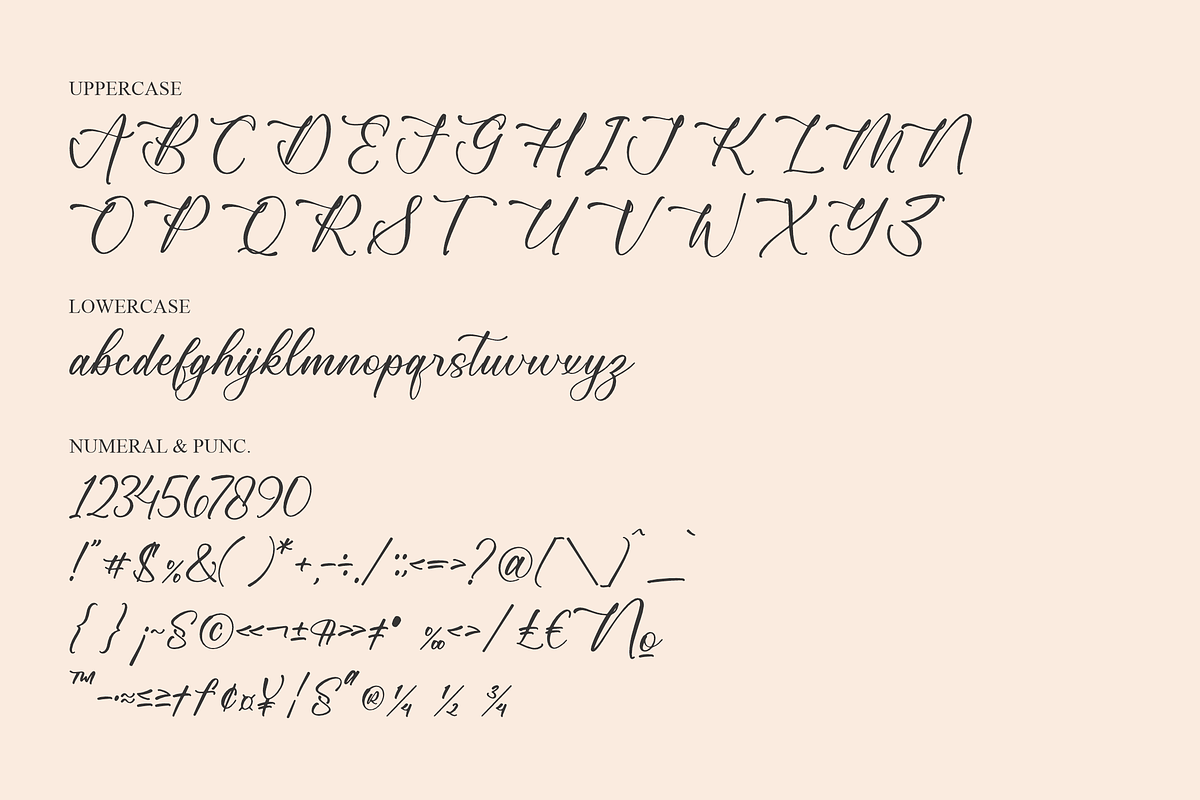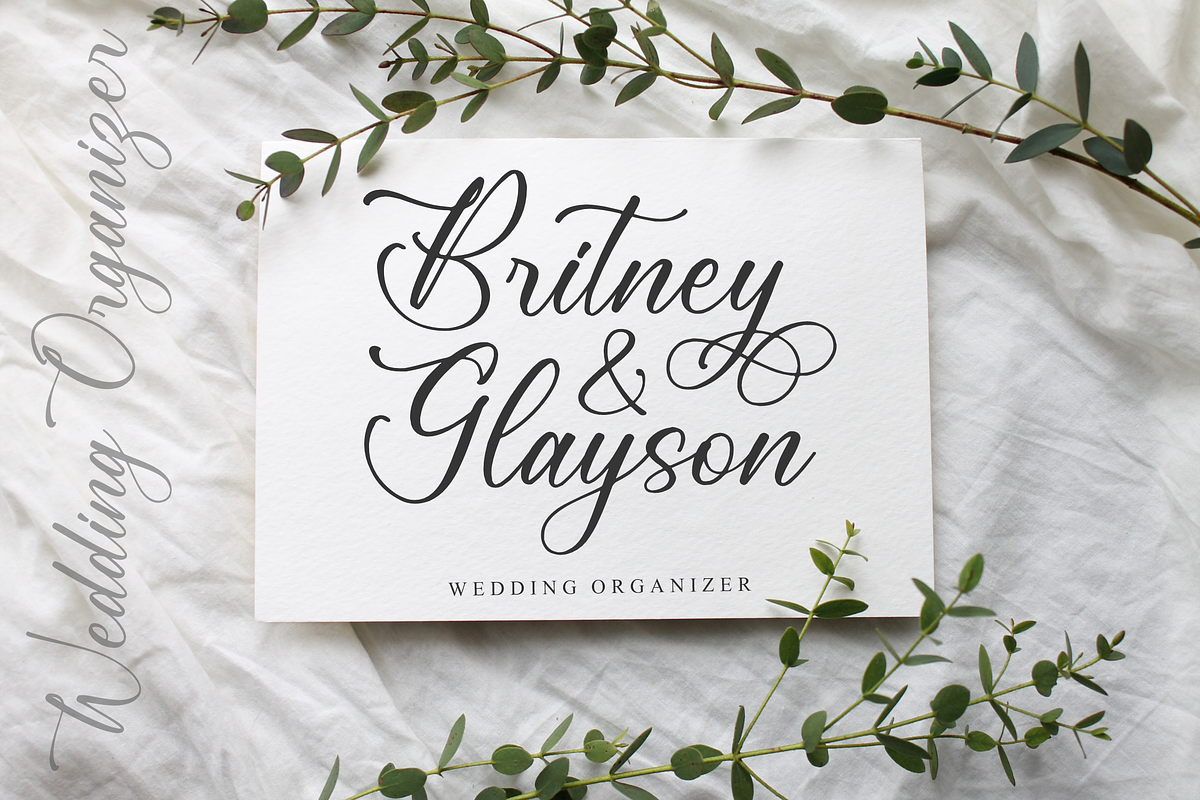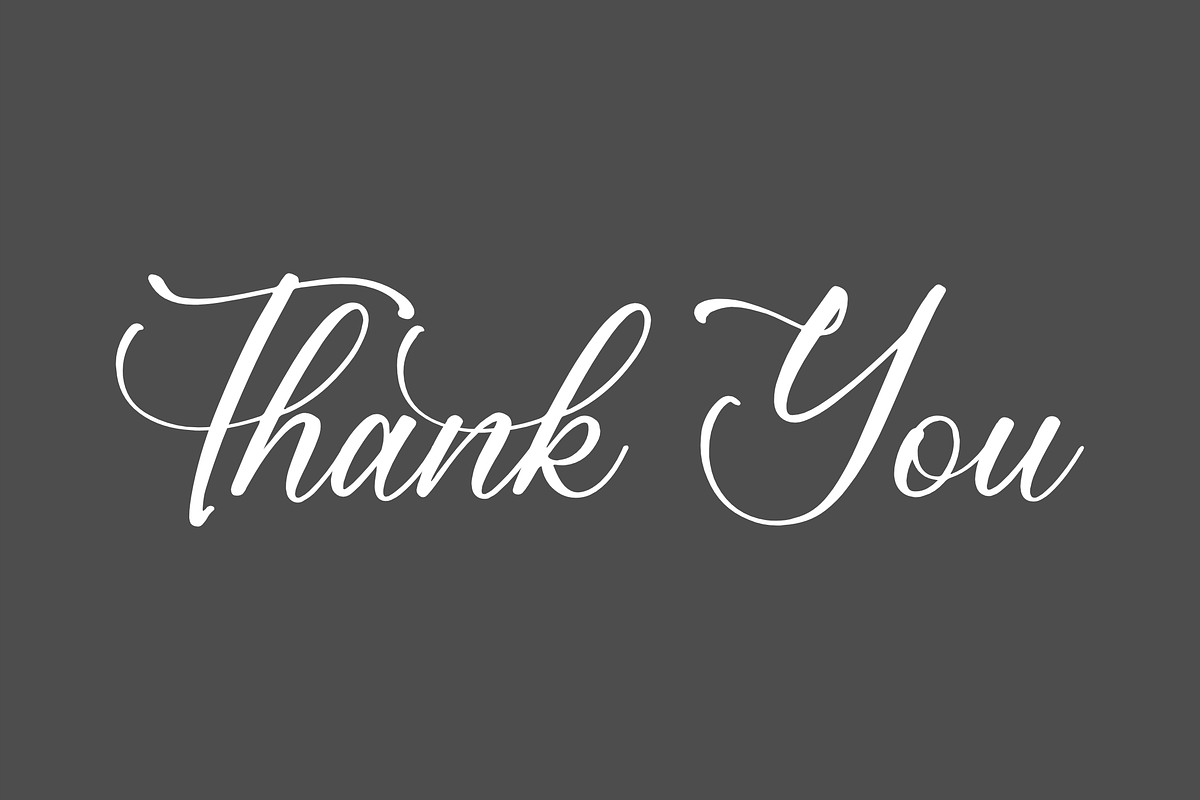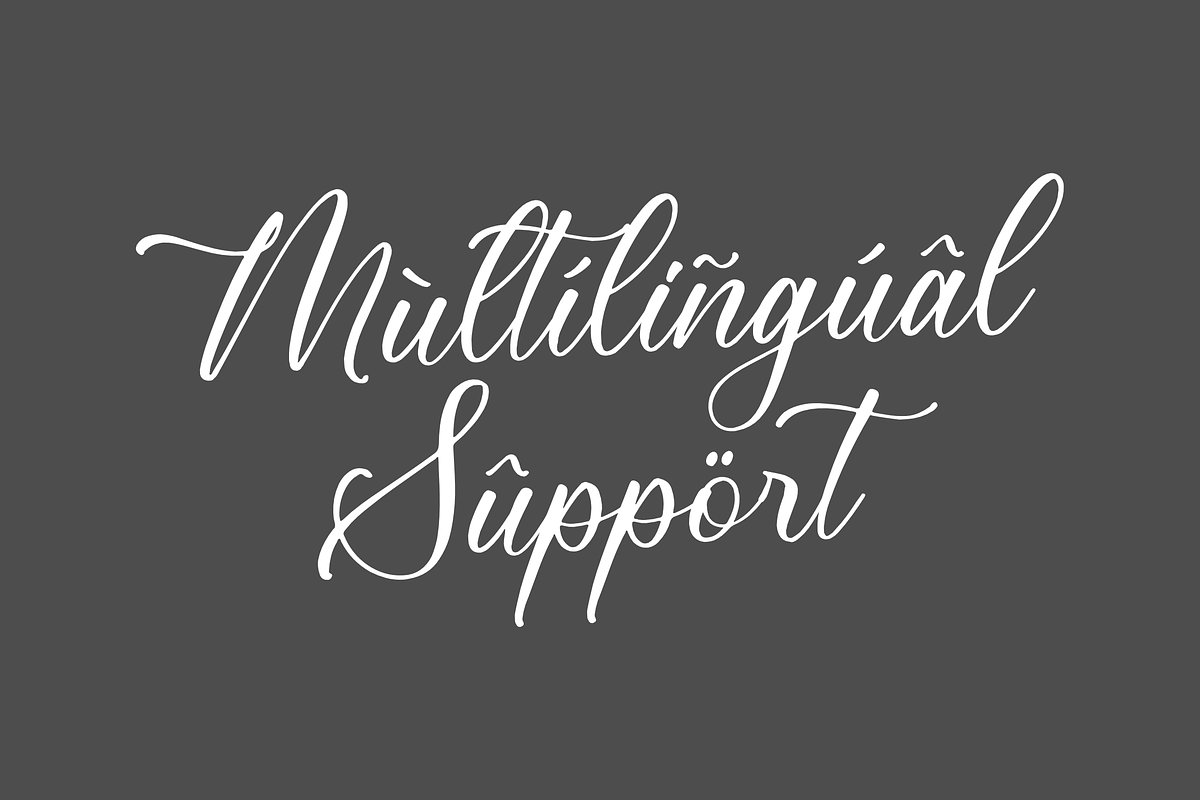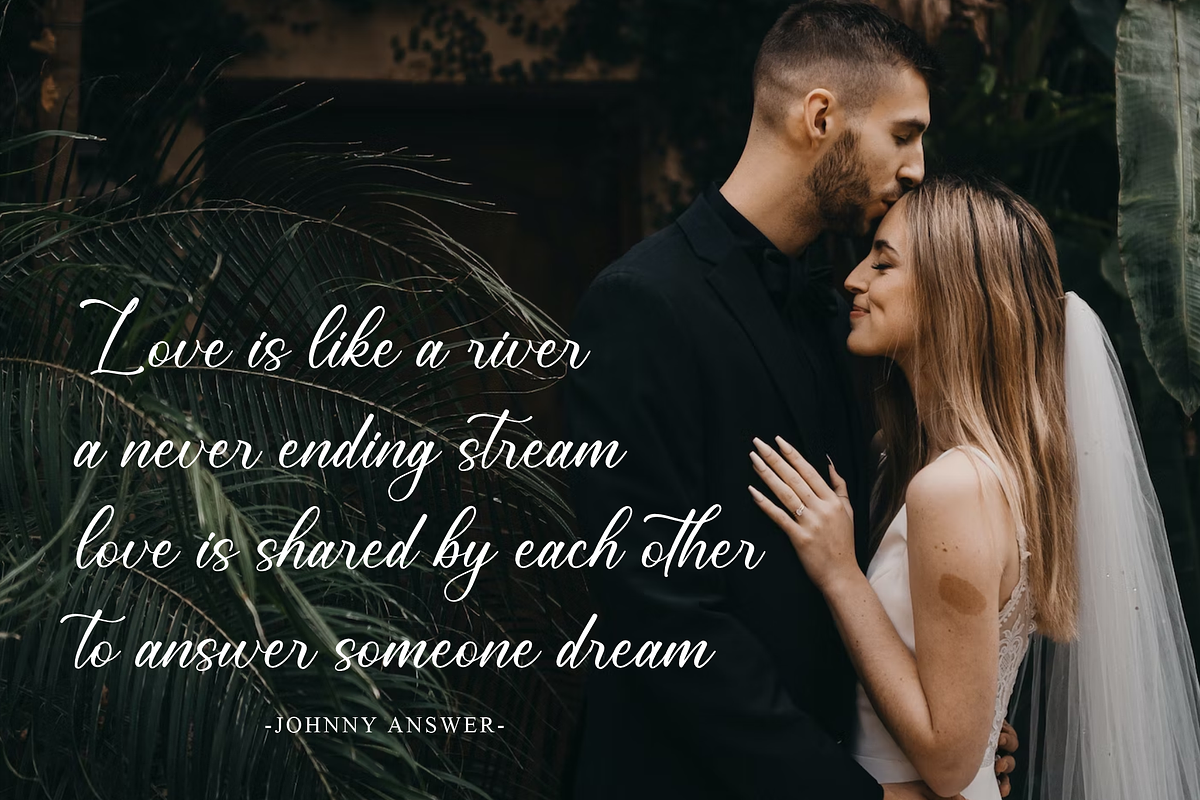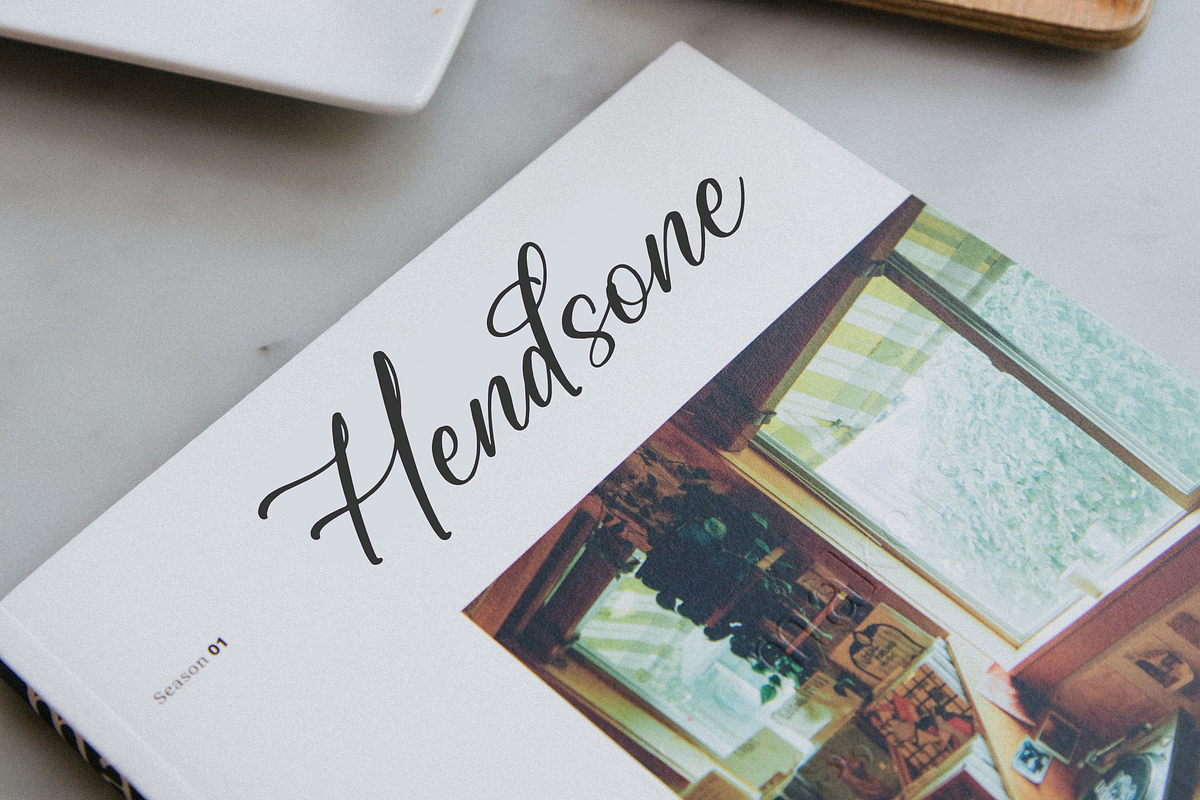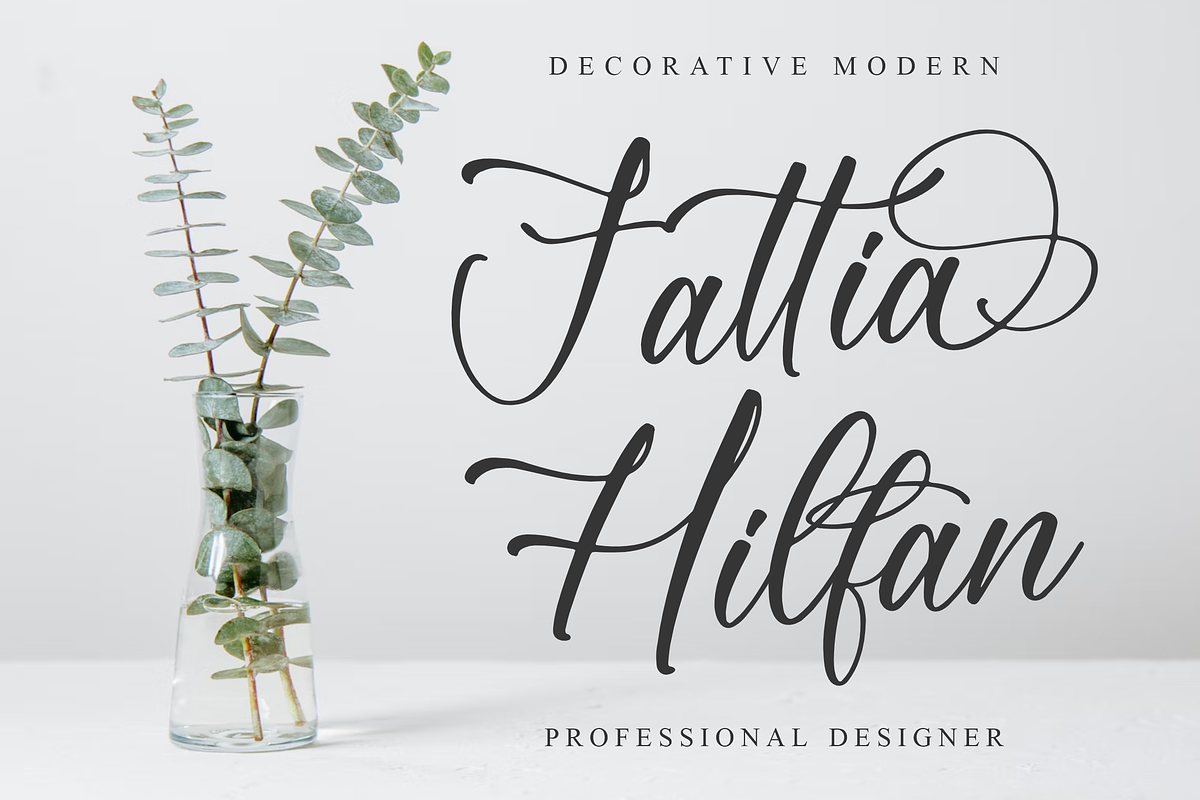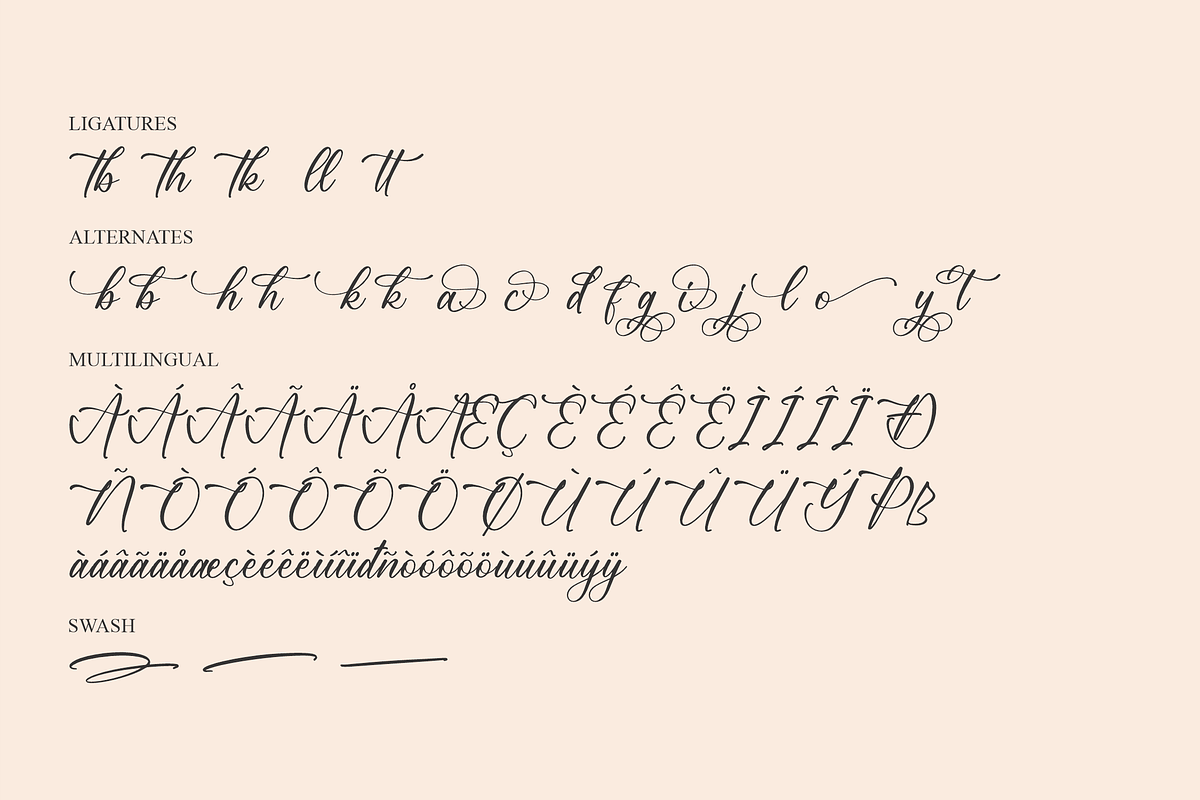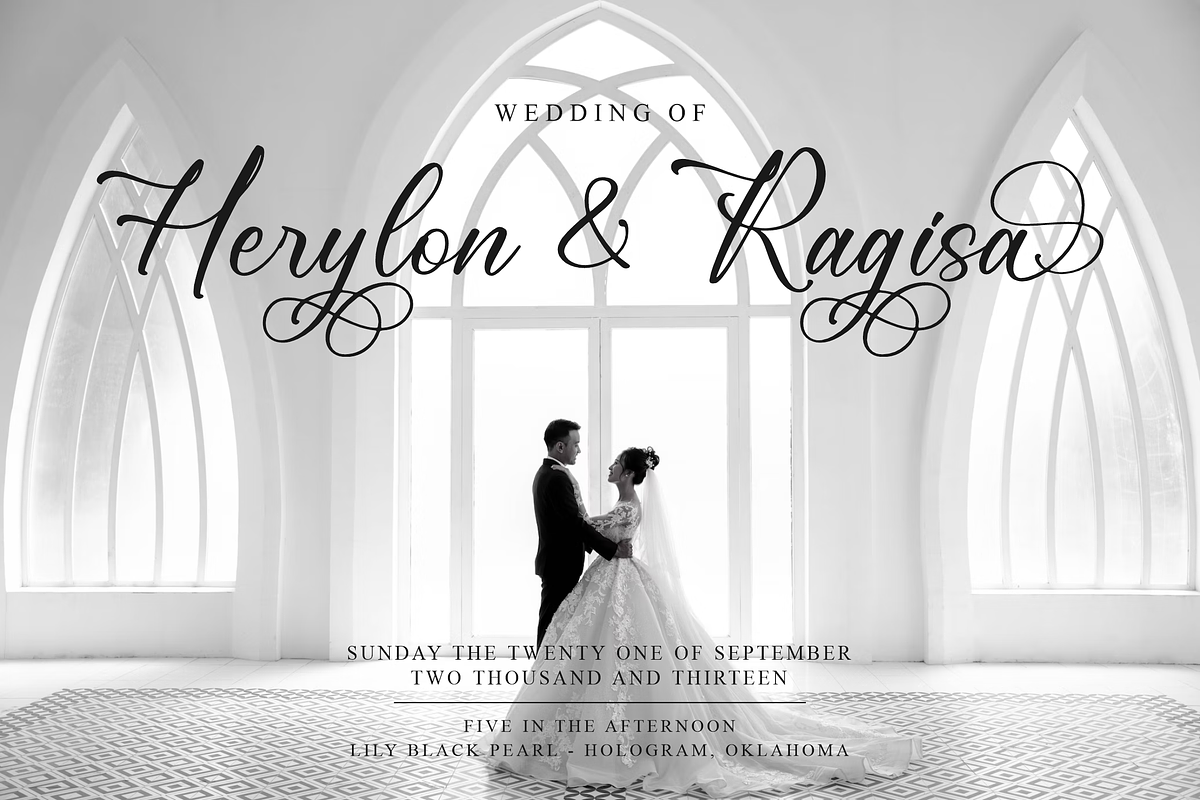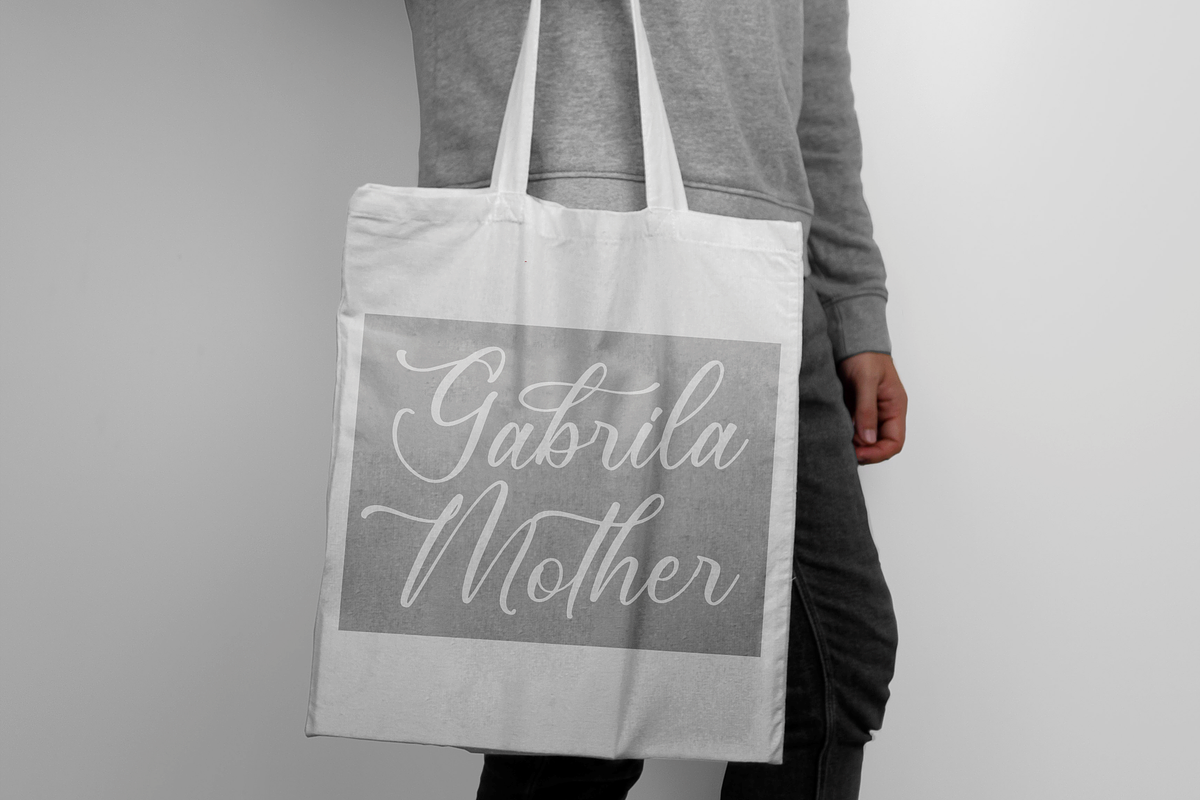
Gattenburg Mikalia Script Font
Proudly present Gattenburg Mikalia Beautiful Script , created by Storytype, A Beautiful script that has own unique style & modern look. This typeface is perfect for an elegant & luxury logo, book or movie title design, fashion brand, magazine, clothes, lettering, quotes, and so much more.